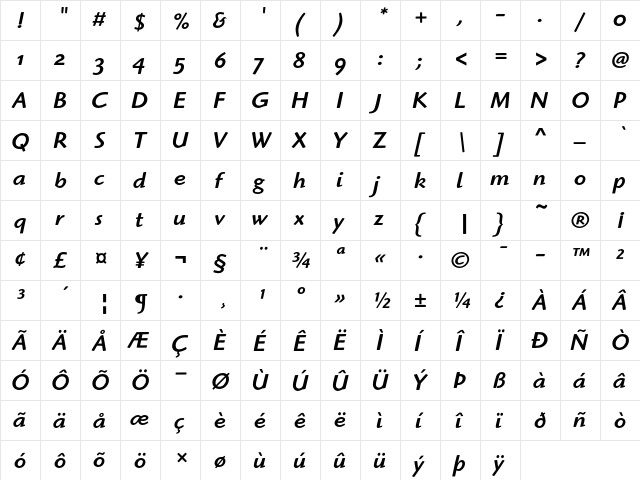
Highlander ITC Medium Italic OS
Design Context for Highlander ITC Typeface
Highlander ITC offers clean, dependable letterforms without strong stylistic allegiance, making it a practical choice for designers who need flexibility. The dynamic lean of this cut emphasises speed and emphasis in any layout.
Pro Tip: Try Highlander ITC for annotation and caption copy alongside an upright companion — the contrast in angle creates a dynamic but ordered typographic system.